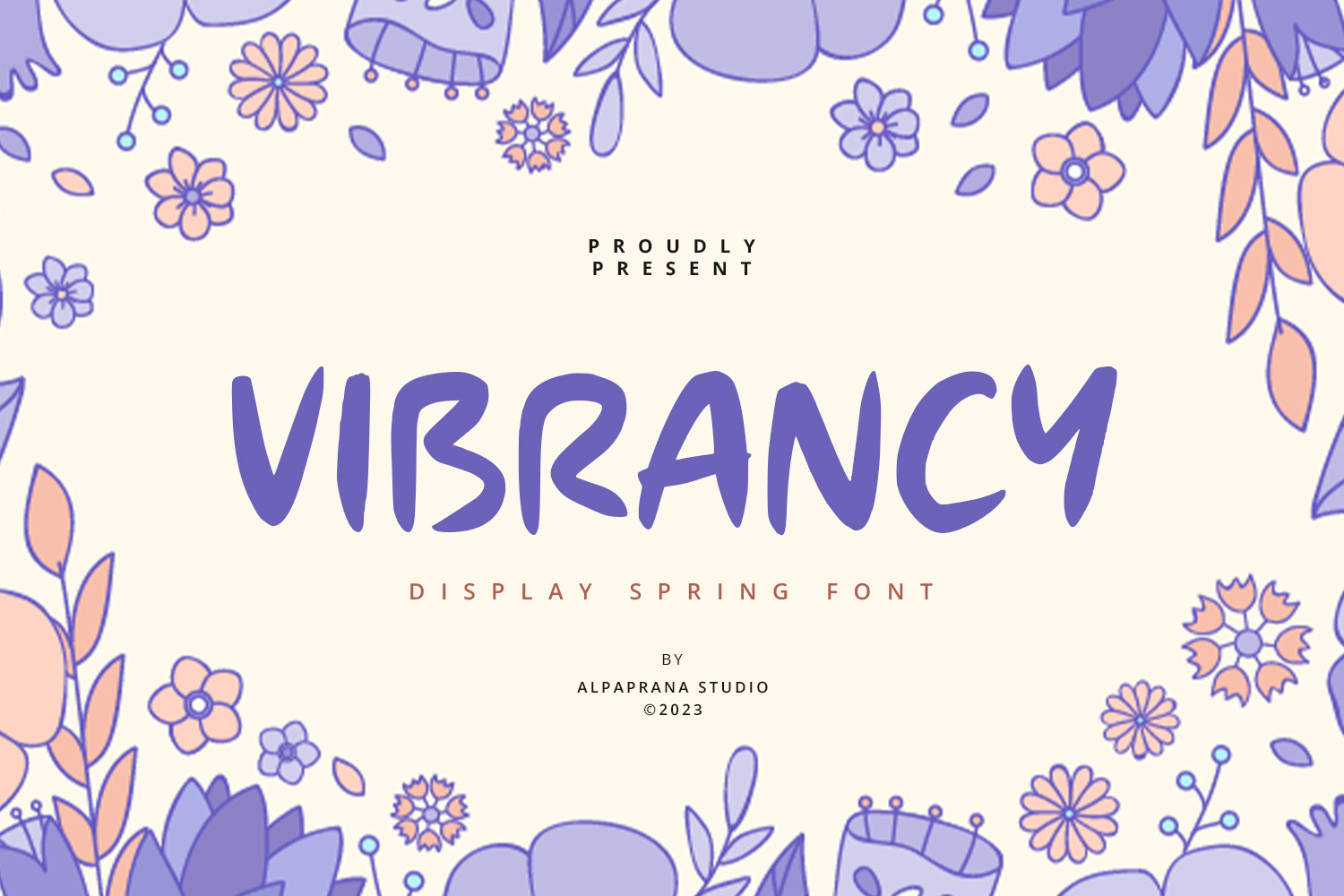
Vibrancy - Display Font
Vibrancy is a display font with natural and modern feels. It will be perfectly used for Branding, Logo Design, Lettering, Logotype, Clothing, Poster, magazine, packaging, posters, shopping bags, t-shirts, book covers, photography, special events and other design project.